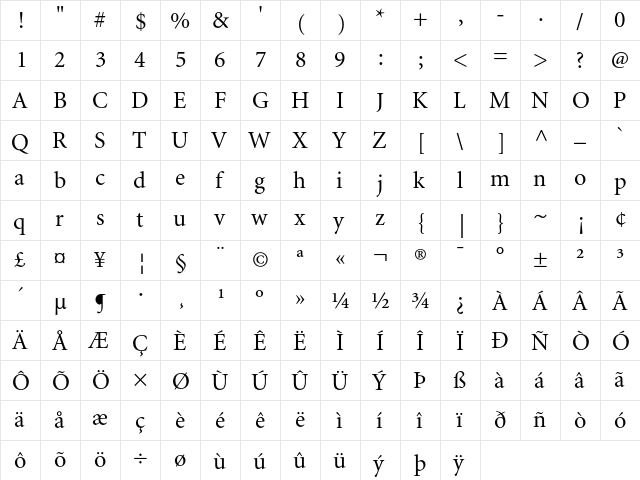
Adobe Corporate ID Minion Regular
Design Context for Adobe Corporate ID Typeface
Adobe Corporate ID offers clean, dependable letterforms without strong stylistic allegiance, making it a practical choice for designers who need flexibility.
Pro Tip: Pair Adobe Corporate ID with a font of contrasting weight or personality to build a more expressive typographic hierarchy.